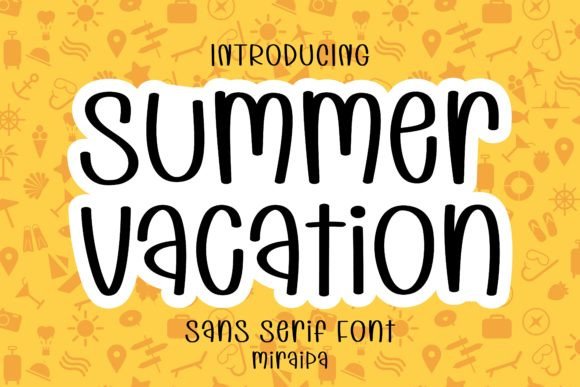
Step into a world of playful charm with "Summer Vacation," a whimsical sans-serif font that radiates joy and lightheartedness like a warm summer breeze. Crafted by the talented miraipa, this typographic delight dances across your screen with its rounded shapes and playful curves, making it the perfect choice for capturing the essence of carefree summer days.
Let your words take on a life of their own as they flow through the vibrant characters of "Summer Vacation." Its friendly and approachable demeanor makes it an ideal font for captivating children's imaginations in storybooks, textbooks, and classroom materials. Create a whimsical ambiance for your food packaging designs, evoking a sense of warmth and nostalgia that will leave a lasting impression on your customers.
With "Summer Vacation," social media posts become vibrant expressions of joy and creativity. Transform your feeds into a visual playground, engaging your audience with eye-catching quotes, captivating captions, and vibrant announcements. This font's ability to convey a lighthearted and approachable tone makes it a perfect match for brands and individuals seeking to connect with their audience on a personal level.
"Summer Vacation" is more than just a font; it's a design companion that adds a touch of fun and whimsy to every project it graces. Its versatility extends beyond the digital realm, making it a delightful choice for designing merchandise, invitations, greeting cards, and even temporary tattoos. Unleash your creativity and let "Summer Vacation" be your artistic passport to a world of boundless possibilities.